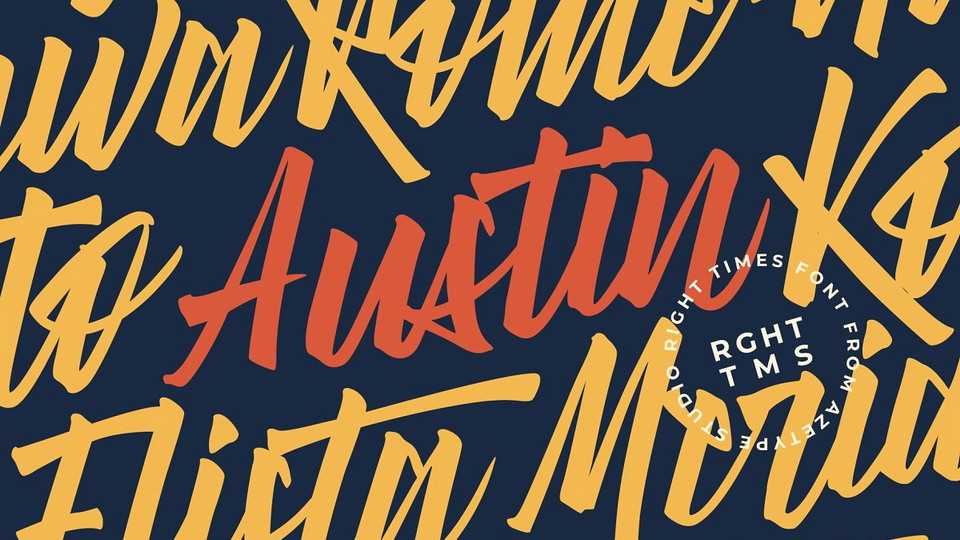
Download Right Times font, a distinct brush script. This font made with the perfect combining of each character. Right Times font looks original and can be used for all your project needs.
Designer: Azetype Studio